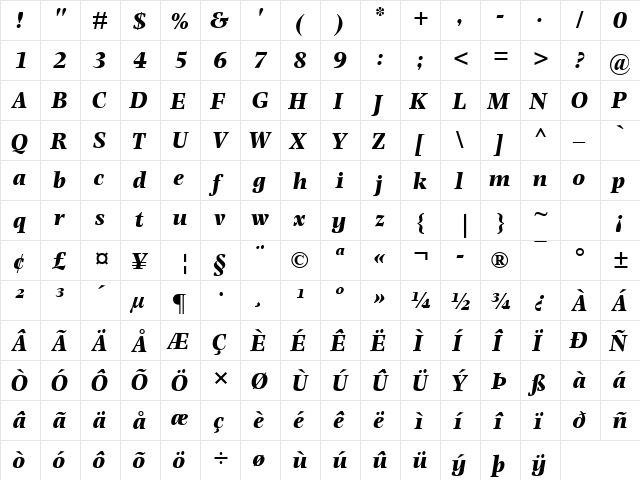
Photina MT Bold Italic
| Foundry | Agfa Monotype Corporation |
Design Context for Photina MT Typeface
Photina MT offers clean, dependable letterforms without strong stylistic allegiance, making it a practical choice for designers who need flexibility. The dynamic lean of this cut emphasises speed and emphasis in any layout. The heavy weight commands attention and anchors typographic hierarchies.